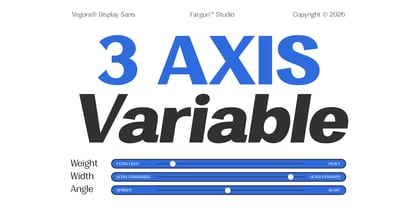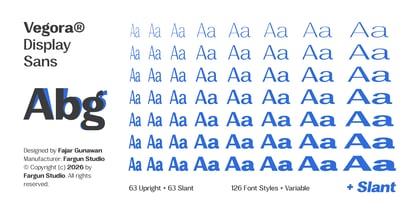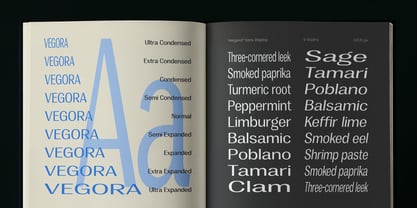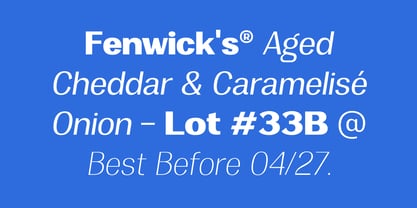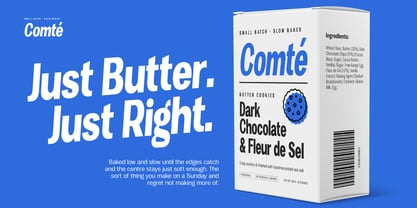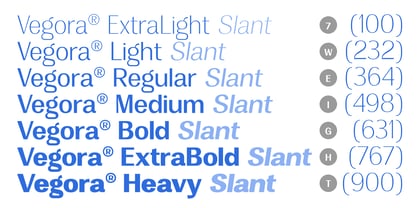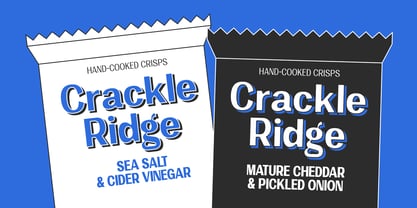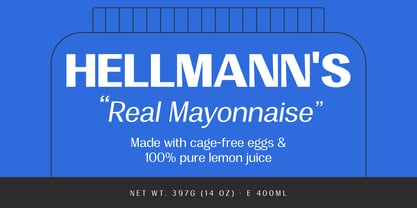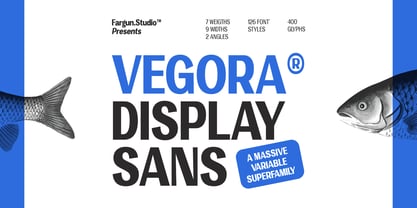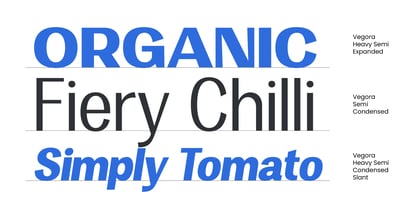
Vegora
by Fargun Studio
The Vegora Font Family was designed by Fajar Gunawan and published by Fargun Studio. Vegora contains 119 styles and family package options. More about this family
Vegora is a massive variable superfamily designed to do it all bold, flexible, and effortlessly refined. Blending clarity with warmth, this modern sans serif is built on carefully crafted proportions and open letterforms, delivering outstanding readability across both print and digital platforms. Behind its clean, contemporary structure lies a subtle humanist touch, giving Vegora a tone that feels both professional and approachable. Whether you're shaping a strong brand identity, crafting editorial layouts, designing intuitive UI, or building impactful advertising, Vegora adapts with confidence. With 126 styles spanning 7 weights, 9 widths, and 2 angles, Vegora gives you complete creative control. From tight, powerful headlines to smooth, highly legible body text, it empowers you to create clear and dynamic typographic hierarchies without compromise. Meticulously engineered spacing, balanced contrast, and finely tuned details define its character—crisp when precision matters, soft when personality counts. Vegora isn’t just versatile, it’s your all-in-one typographic system.